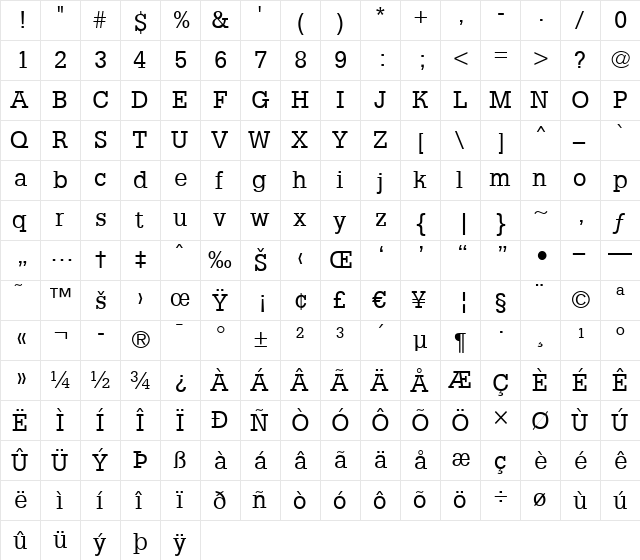
a_Noter Regular
Design Context for a_Noter Typeface
a_Noter is a composed and adaptable typeface that performs quietly and consistently across a wide range of design contexts.